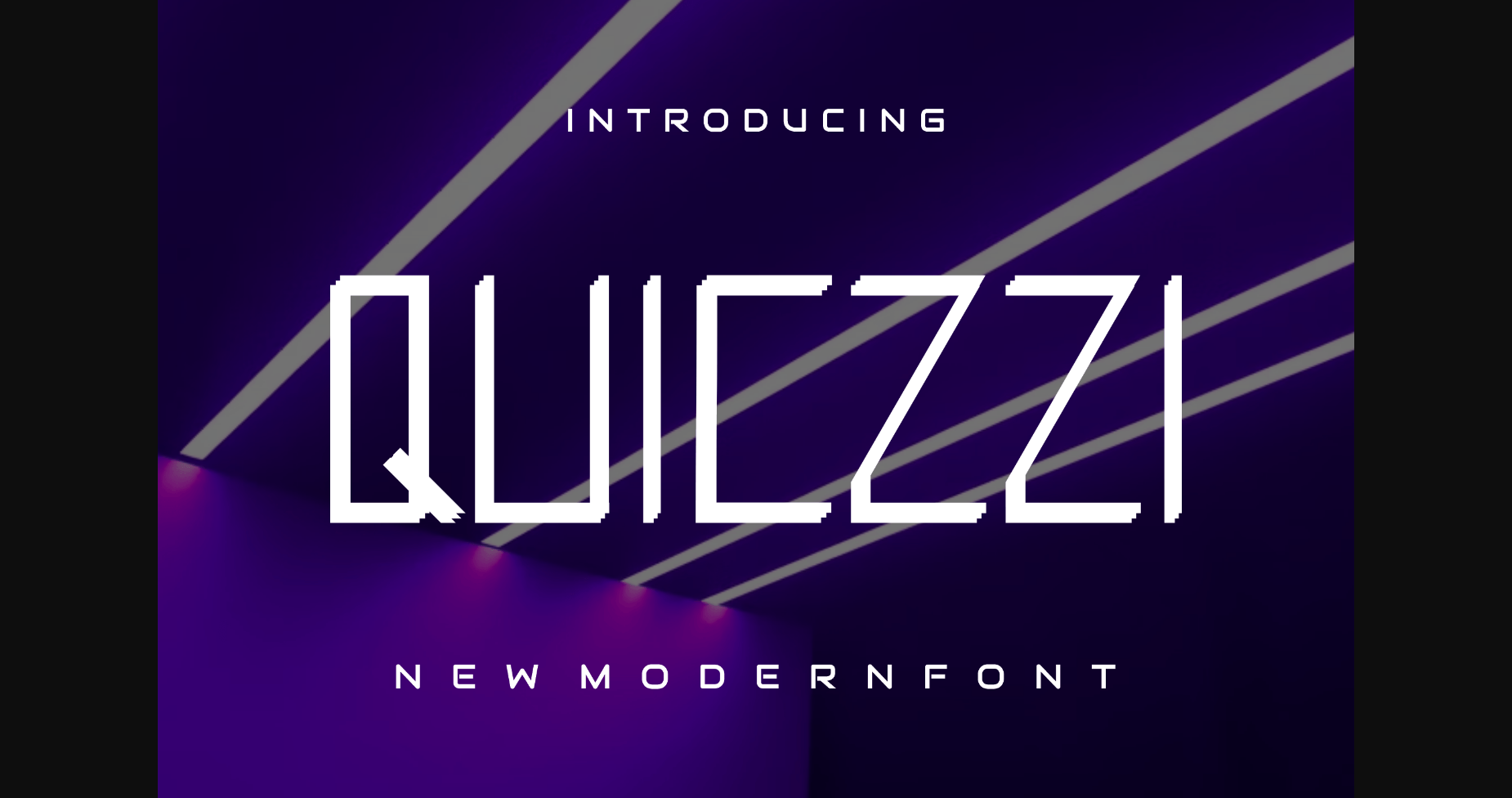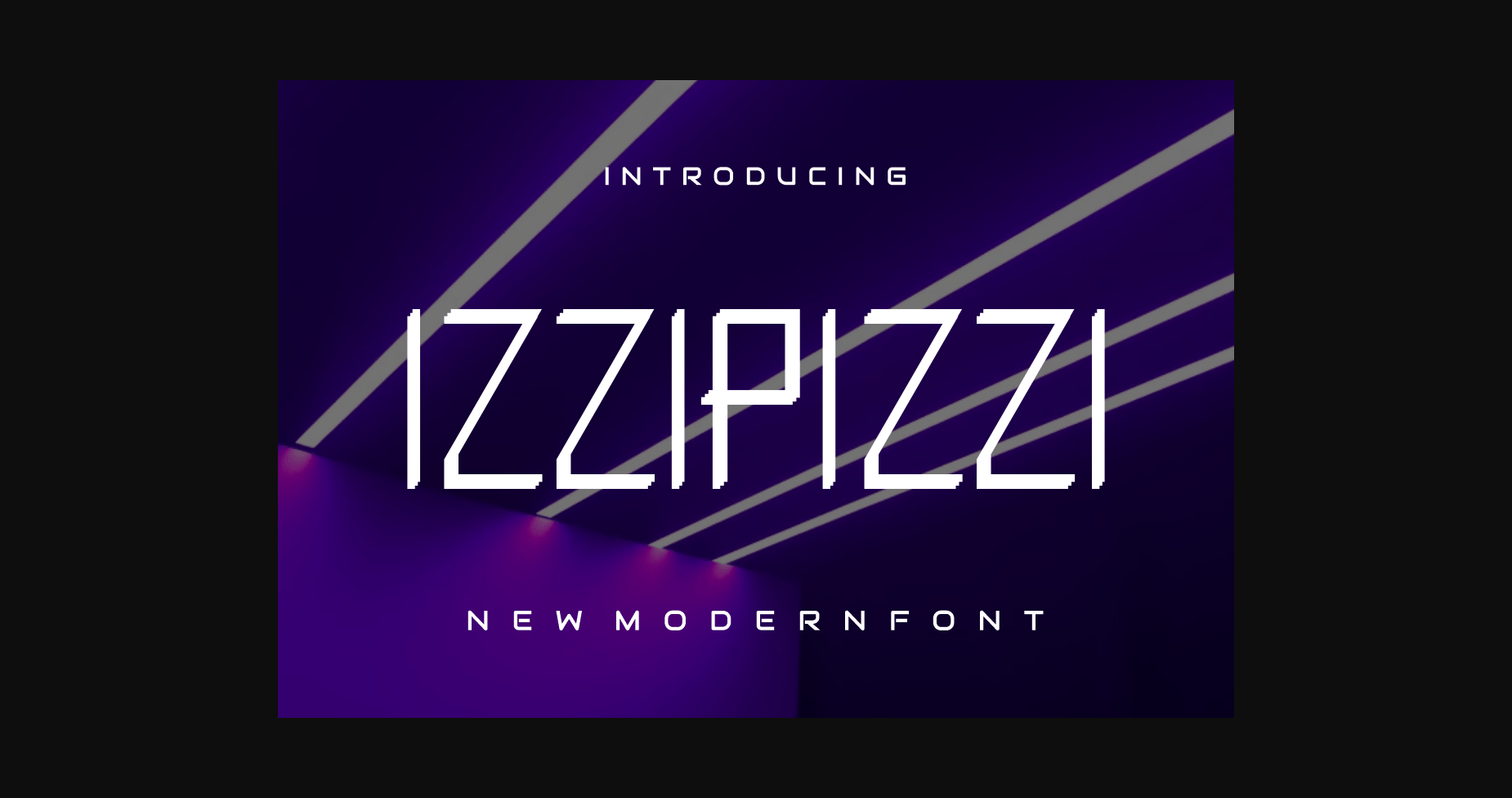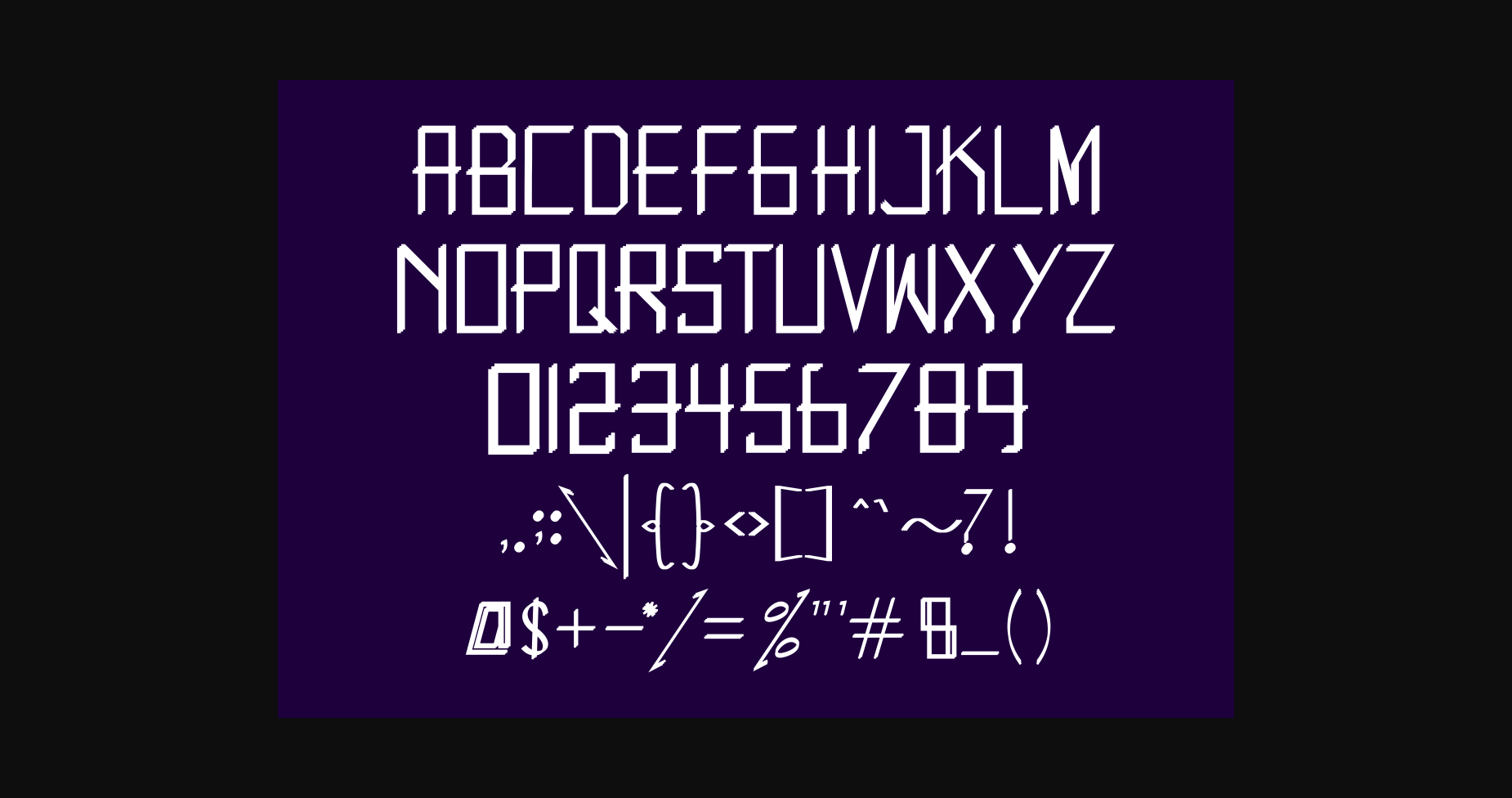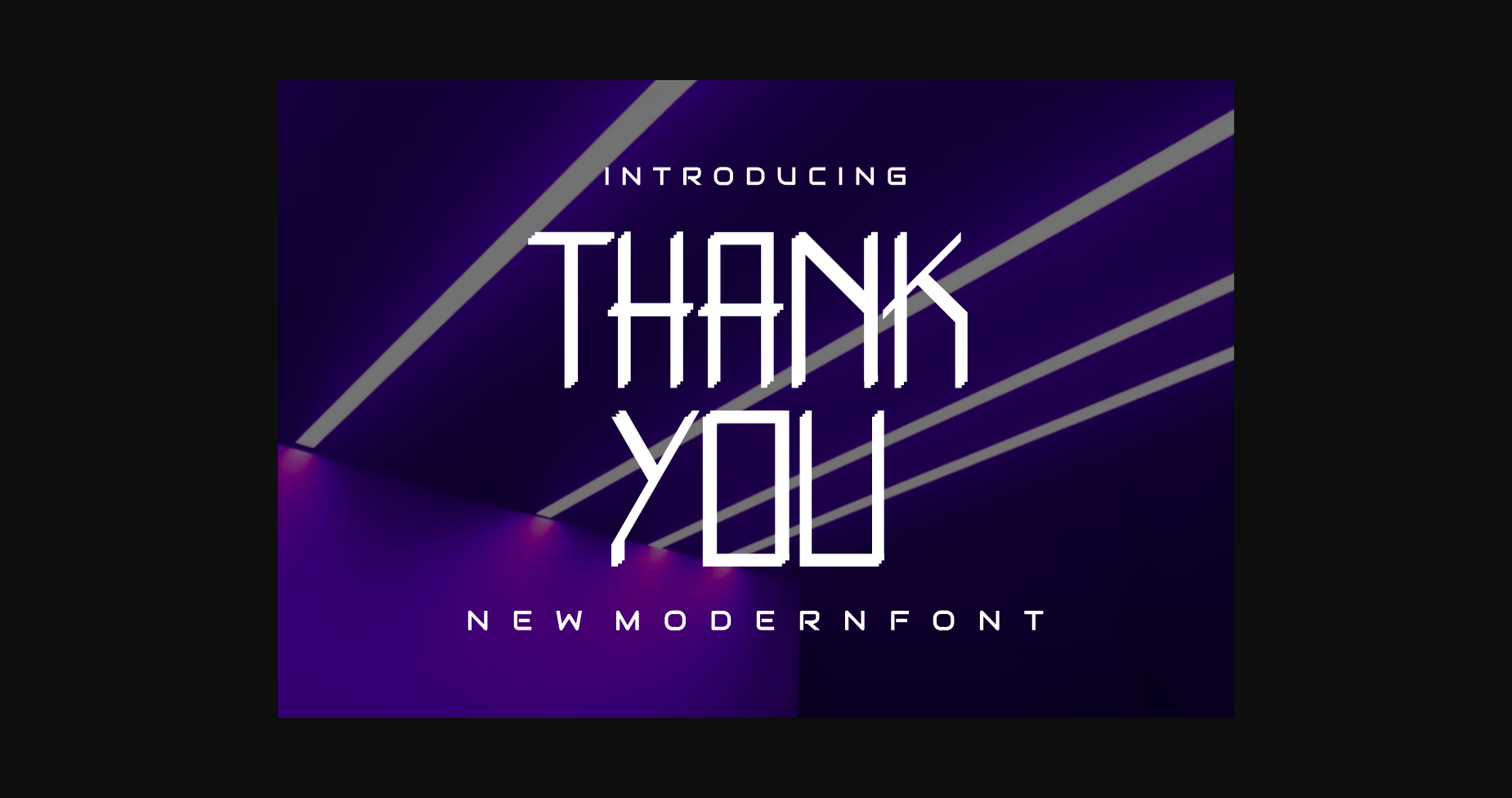
Quiczzi Font
About Quiczzi Font
Quiczzi is a modern sans serif font that feels beautiful classy, elegant, and modern. This font is perfectly suited for a wide variety of projects, such as signature, stationery, logo, wedding, typography quotes, magazine or book cover, website header, clothing, branding, packaging design, and more. Also, fashion-related branding or editorial design displays both masculine and feminine qualities.